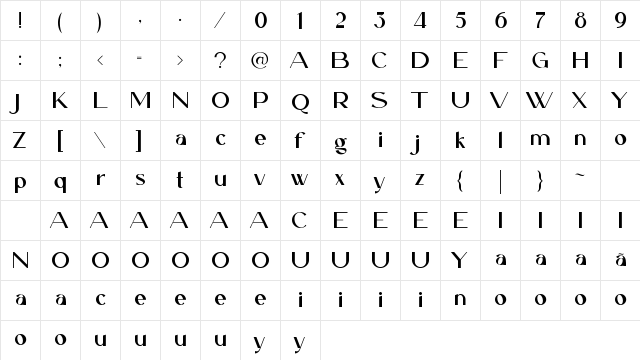
Caligna DEMO Regular
Design Context for Caligna DEMO Typeface
Caligna DEMO is a composed and adaptable typeface that performs quietly and consistently across a wide range of design contexts.
Pro Tip: Use Caligna DEMO in both headline and body roles to test its range before committing to a single application.